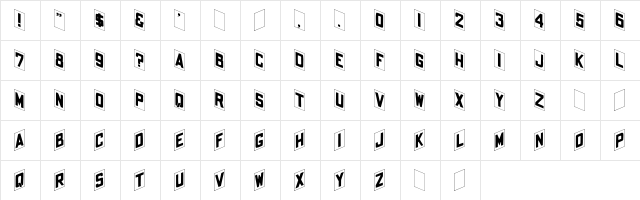
Shohl-Fold Regular
Design Context for Shohl-Fold Typeface
Shohl-Fold is a composed and adaptable typeface that performs quietly and consistently across a wide range of design contexts.